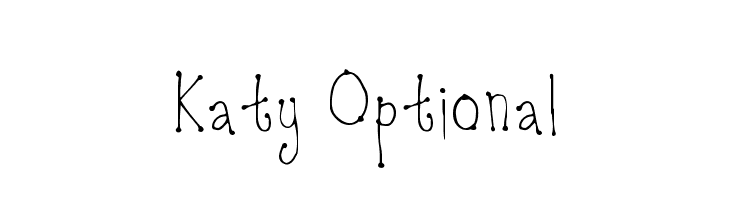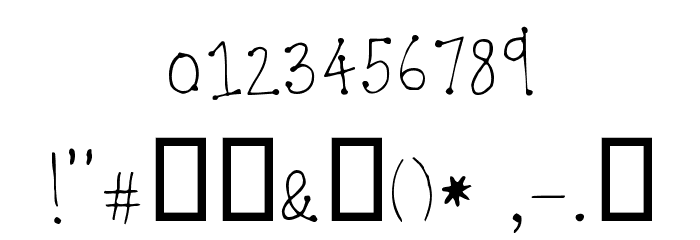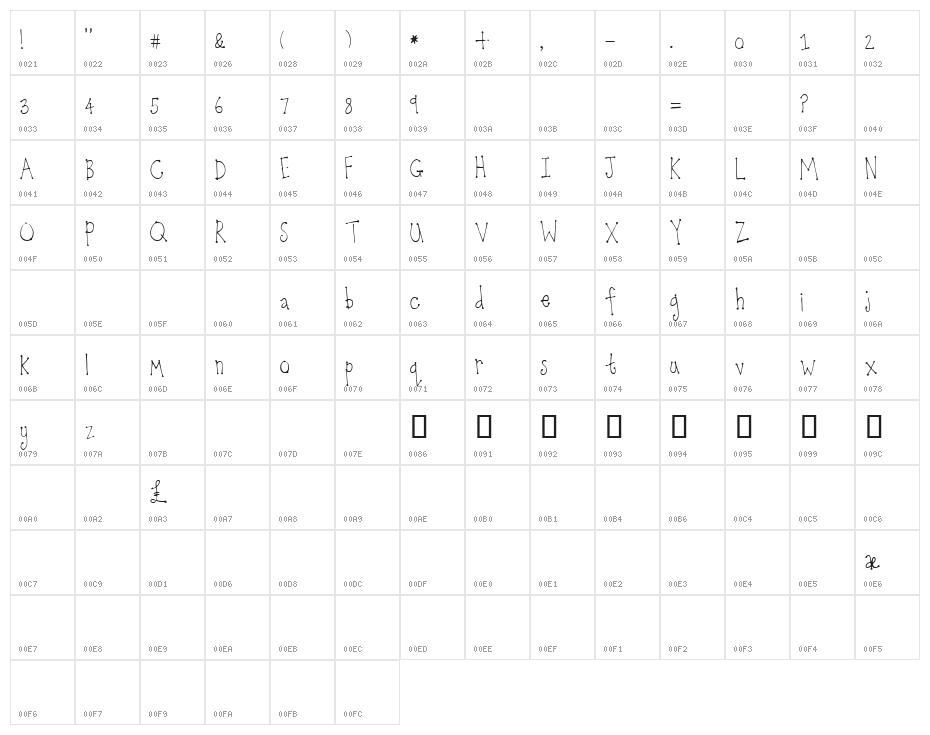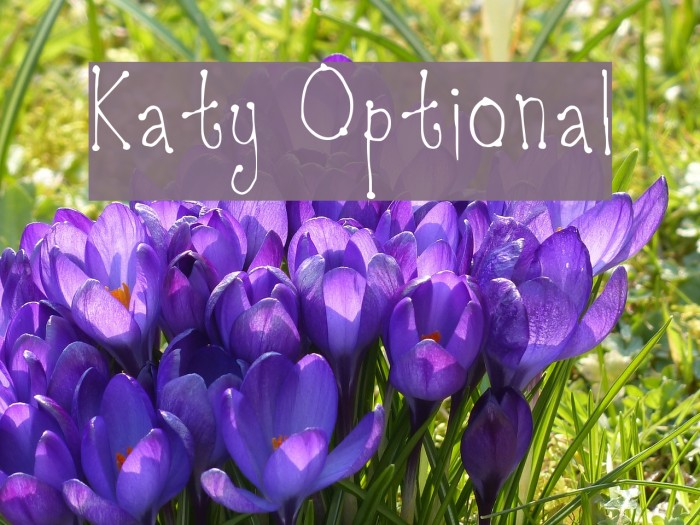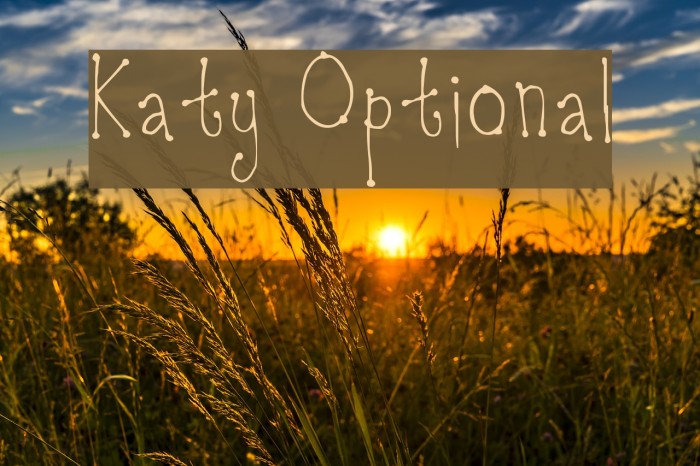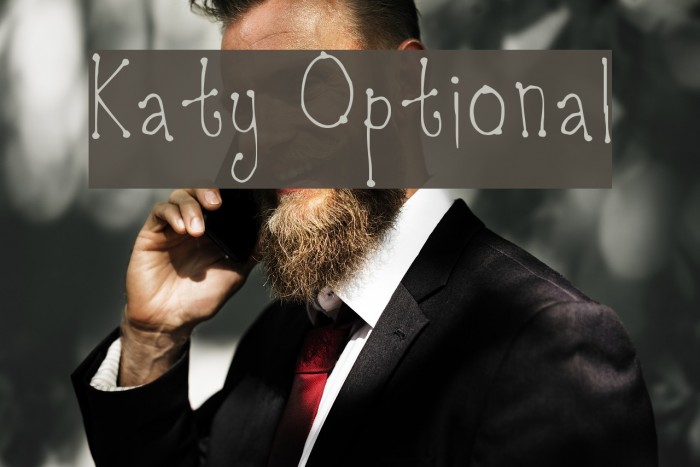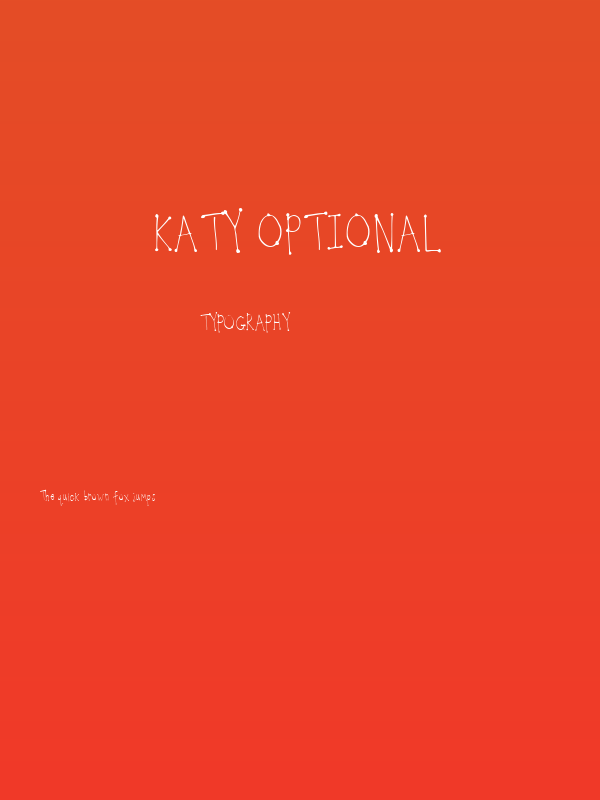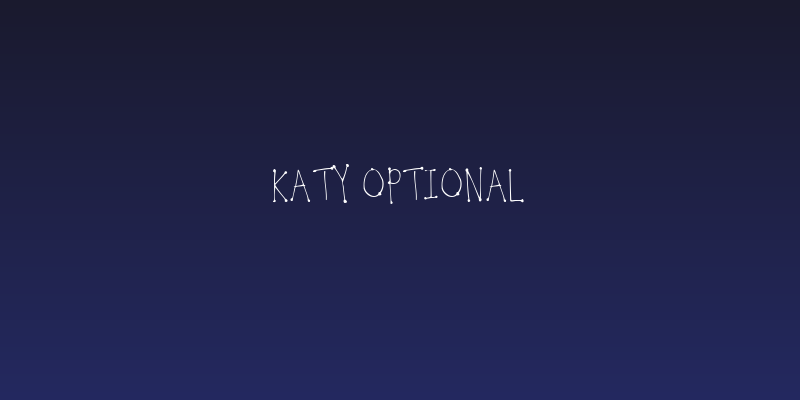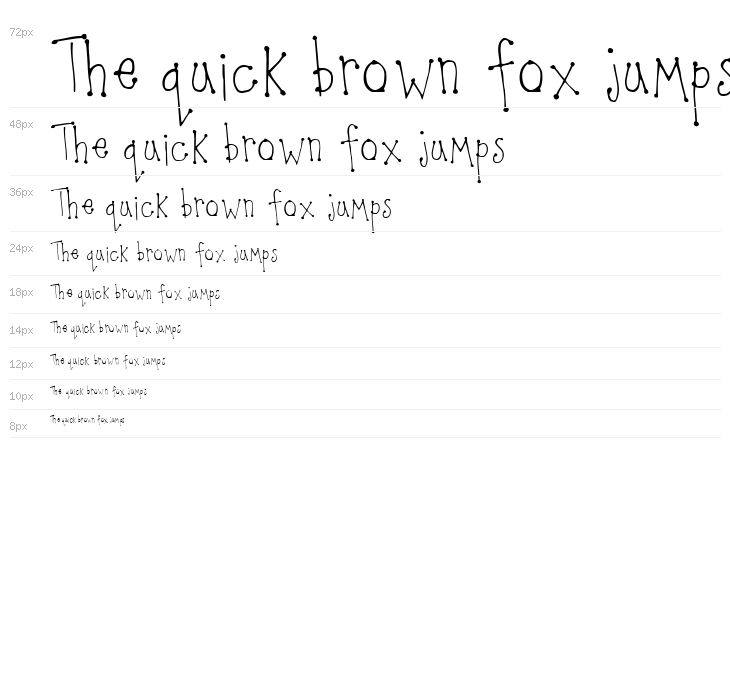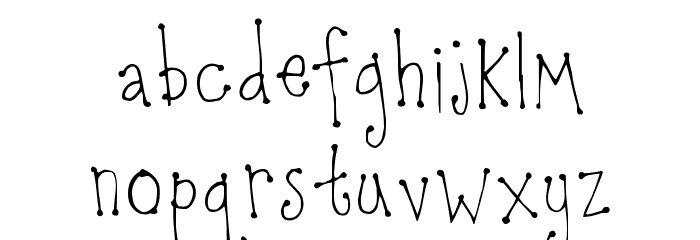
Katy Optional Font
Katy Optional Description
This font features a playful and whimsical design, characterized by its thin, uneven strokes and irregular shapes. The letters are connected by small dots, giving it a hand-drawn, organic feel. The uppercase and lowercase letters maintain a consistent style, with the uppercase being slightly taller and more elongated. Numbers and special characters follow the same playful aesthetic, making the font suitable for creative and informal projects. Its unique appearance makes it stand out, adding a touch of personality to any design.
| Proposed Projects | Ideal for children's books, greeting cards, playful branding, and creative posters. |